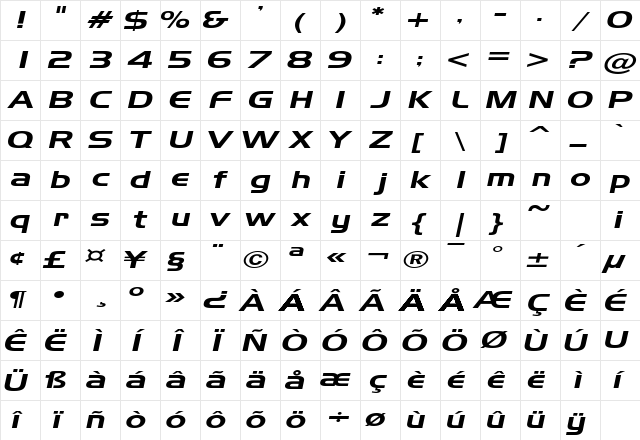
AeroExtended Italic Free Font
AeroExtended Italic
Design Context for AeroExtended
AeroExtended is a composed and adaptable typeface that performs quietly and consistently across a wide range of design contexts. The slanted form adds forward momentum and visual energy.